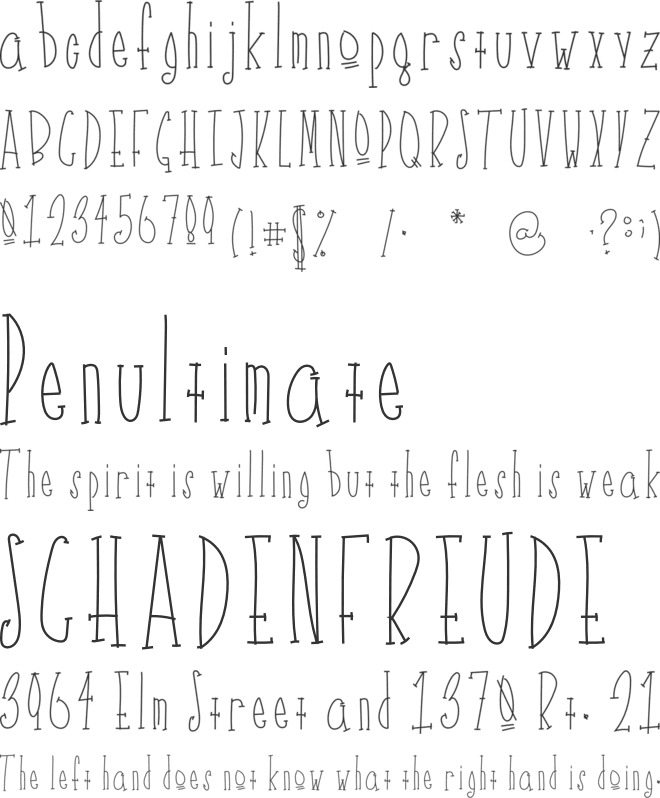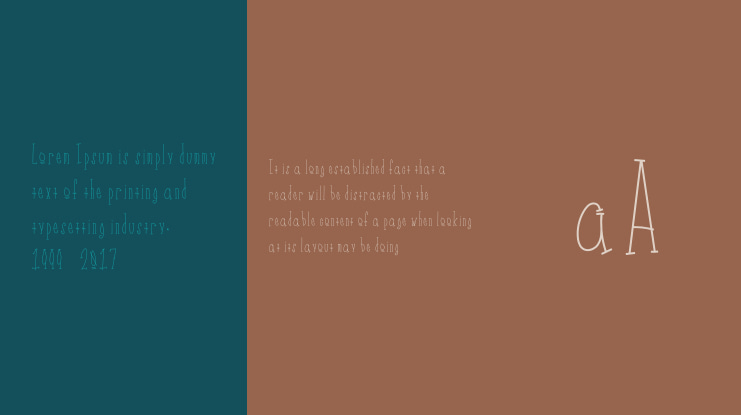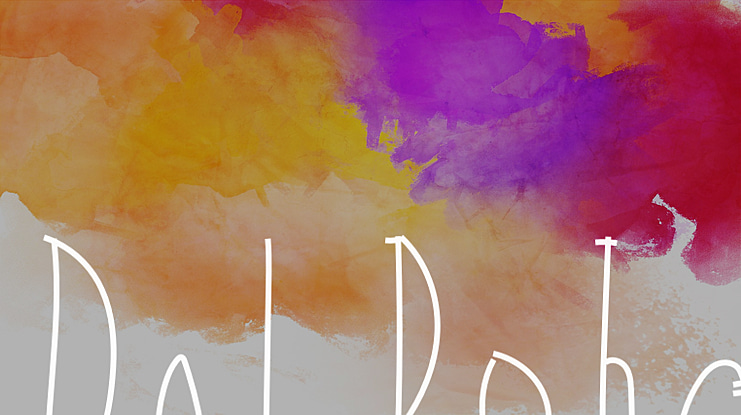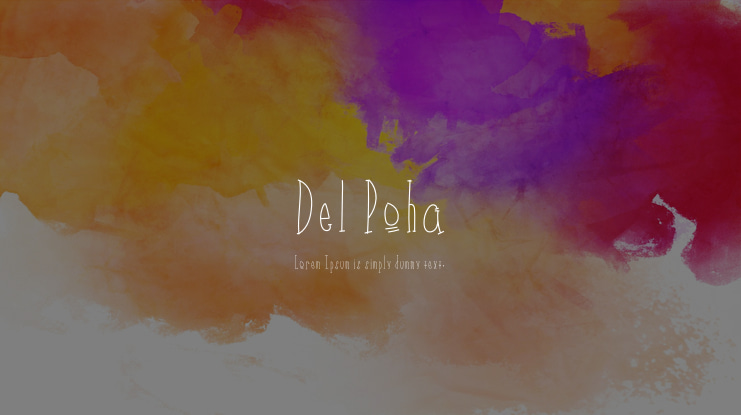
Del Poha Font
Del Poha is a handwritten font that is used for both invitations and posters. Please let us know if you use this font in any of your projects. We would love to share it with our community. For more fonts, please visit www.DwayneAdams.com